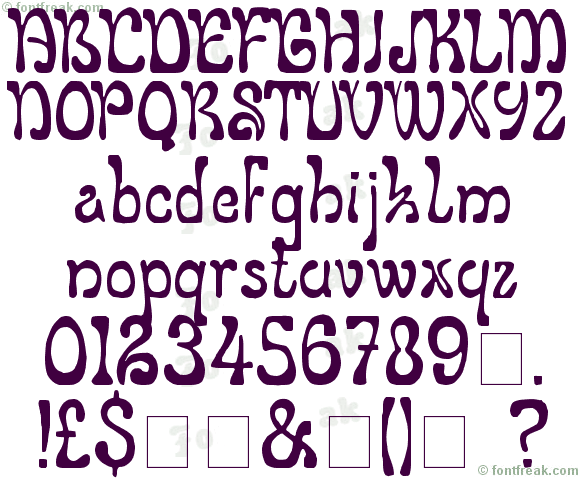
LeGolf
LeGolf, created by Renn Crump in September 2002, is a unique display font that captures a playful yet sophisticated essence. This font exhibits a distinctive handwritten style, characterized by its slightly irregular strokes and charming curves. The stroke weight is moderate, offering a balance between boldness and readability, while the overall contrast adds a delightful visual interest. The spacing between characters is thoughtfully designed to enhance legibility, making it perfect for a variety of applications.
LeGolf shines in specific use cases, making it an excellent choice for graphic designers and content creators alike. Its whimsical character makes it ideal for wedding invitations, where its elegance can complement romantic themes. The font also works beautifully on restaurant menus, adding a touch of personality to the dining experience. For event posters, LeGolf can grab attention while maintaining a stylish flair, and it can even be used effectively in branding for small businesses aiming to convey creativity and approachability.
What sets LeGolf apart is its delightful combination of charm and readability. It manages to convey a sense of authenticity and warmth, making it a fantastic choice for projects that require a personal touch. With the LeGolf font free download readily available, users can easily incorporate this enchanting typeface into their designs, elevating their projects with a unique flair that is both inviting and memorable.